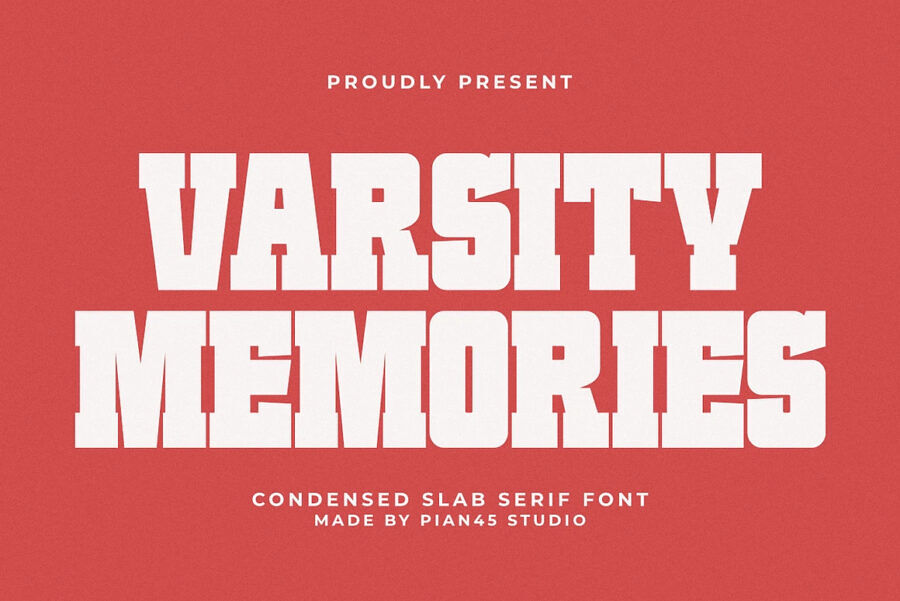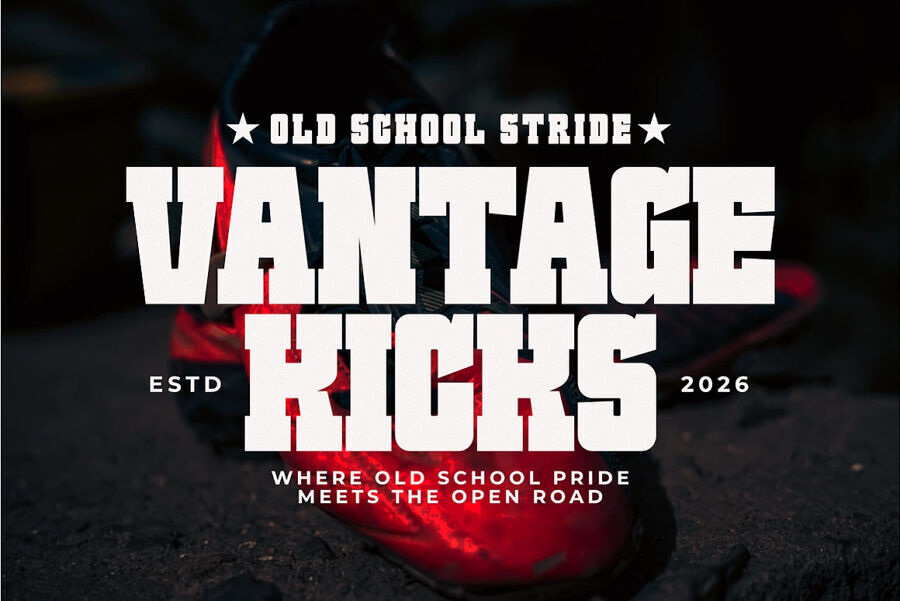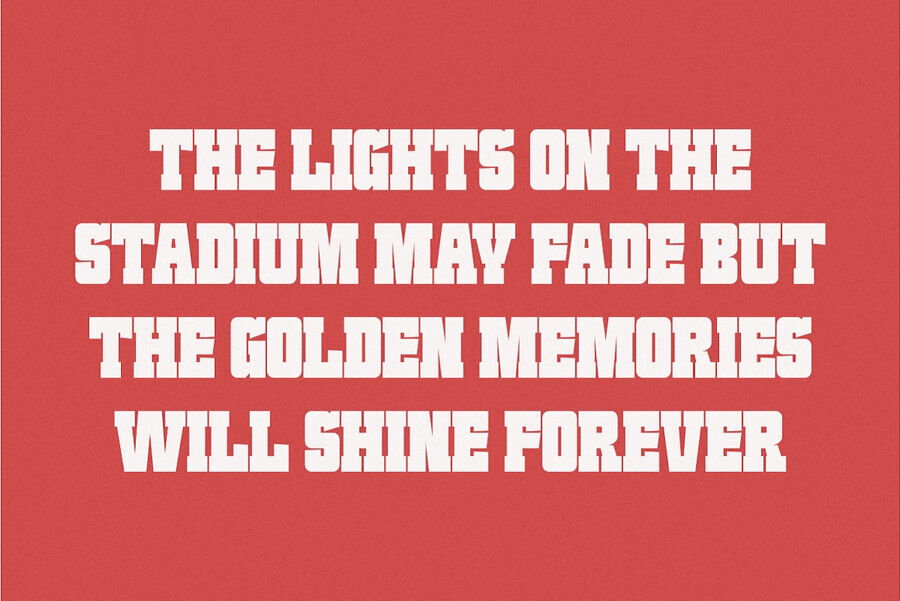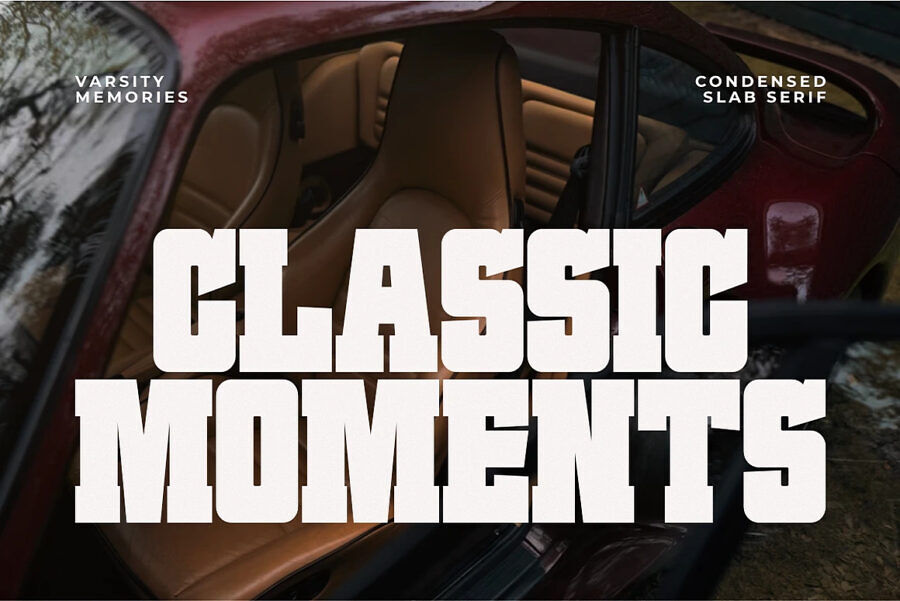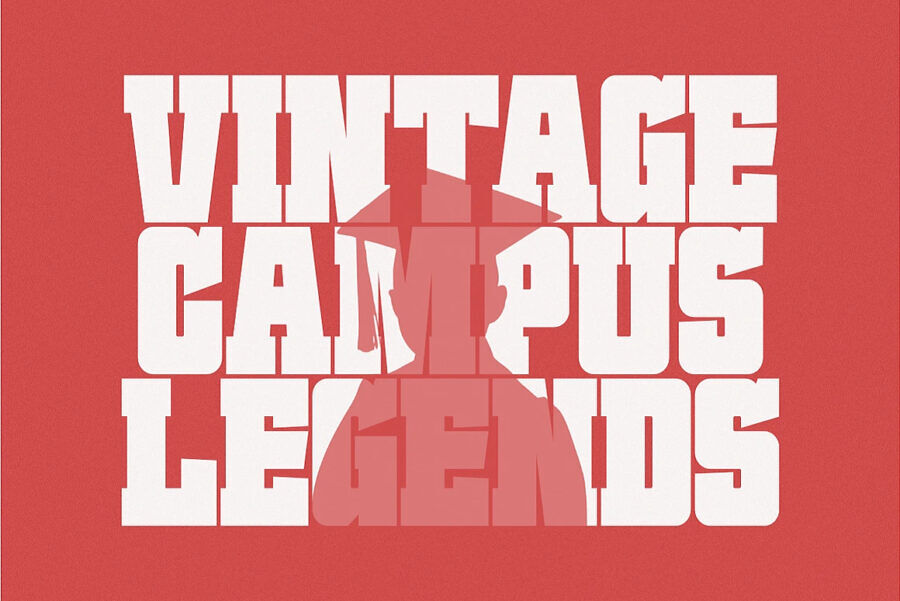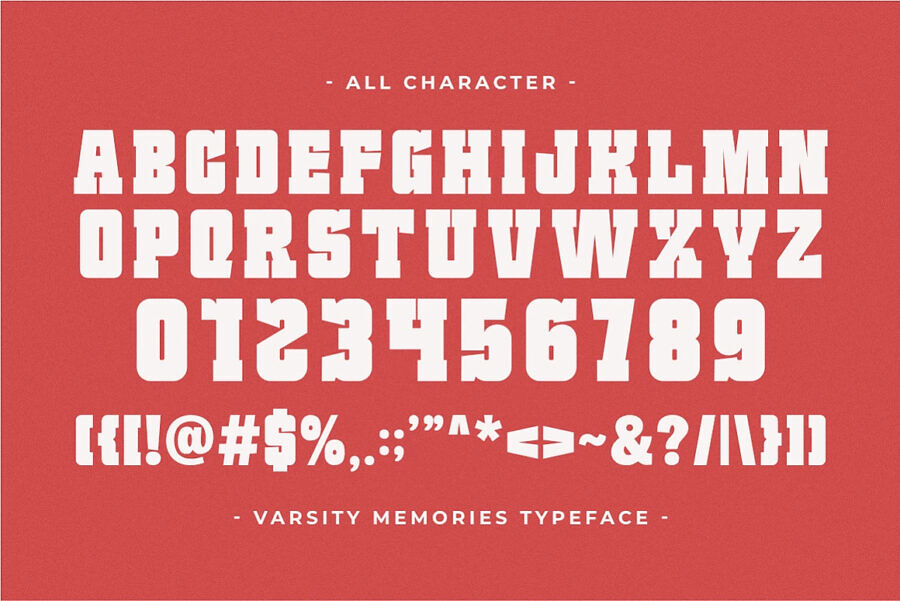
Varsity Memories is a nostalgic yet high-impact Condensed Slab Serif font engineered to capture the timeless spirit of school heritage and classic athletic achievements.
Featuring robust geometric block serifs and a tall, space-saving condensed typeface structure, this all-caps font is the ultimate choice for sports branding, retro varsity jackets, high-school yearbook titles, and alumni team logos. Its commanding visual presence and solid layout ensure maximum readability across custom t-shirt designs, event posters, athletic merchandise, and powerful digital marketing headlines.